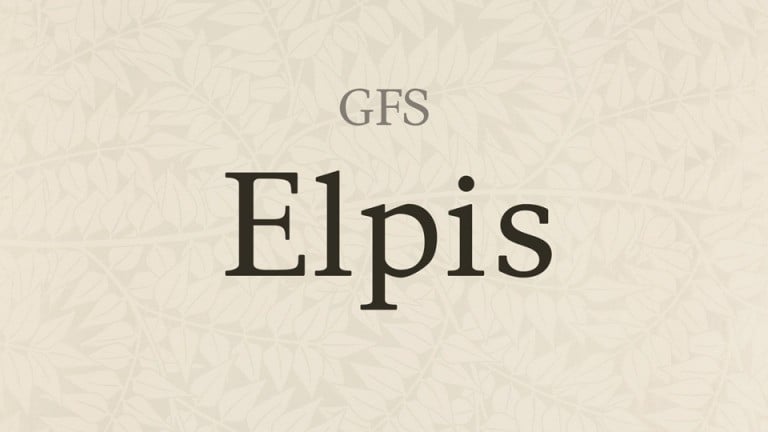
GFS Elpis Serif Font
GFS Elpis Serif Font is a robust serif typeface with a rather tight and clean design so as to be suitable even for inferior paper or low resolution printing. With short ascenders and descenders thus increasing counter size, rounded, sturdy serifs and a humanistic axis, slight antithesis between thick and thin strokes, and its horizontality, Elpis incorporates rhythm and smoothness.
The typeface is also accompanied by a set of non-lining figures and supports open type features such as ligatures, small capitals, old style figures, tabular figures and case-sensitive forms.
Elpis Greek, attempts a modern representation of the Greek script while respecting its long Latin independent tradition. The greek has been designed to blend optically with the Latin avoiding at the same time the ‘latinisation’ of its letterforms. Elpis was designed with an effort to create an overall matching texture to the Latin forms, for example in terms of color (stroke analogy, character width and height) and shape (resemblance of curvature and terminals, where that could be applied) the basic challenge being the combination of the Latin script that is prevailed by horizontal and vertical forms as opposed to the Greek that has mostly rounded forms.
The letters maintain the fluidity of the script, each letter discreetly passing on to the next one, while balancing the variety of stress encountered in Greek letterforms. Elpis is an original design by Natasha Raissaki released by GFS as part of the ongoing effort to contribute to contemporary typography.